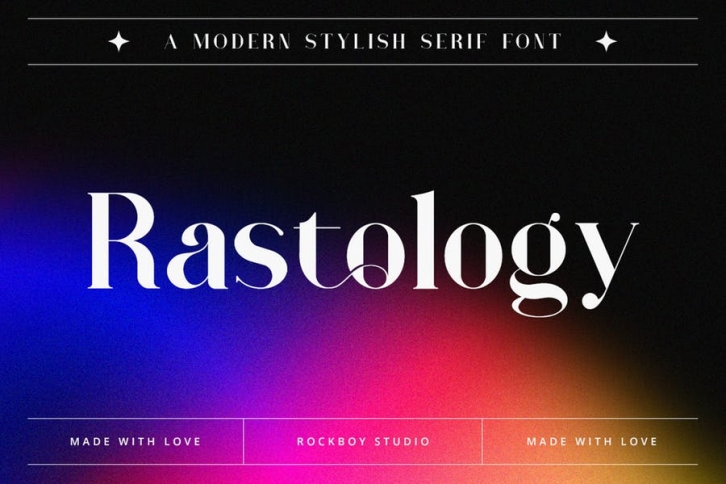
Rastology is a distinct, elegant, and authentic serif font. Masterfully designed to become a true favorite, this font has the potential to bring each of your creative ideas to the highest level!